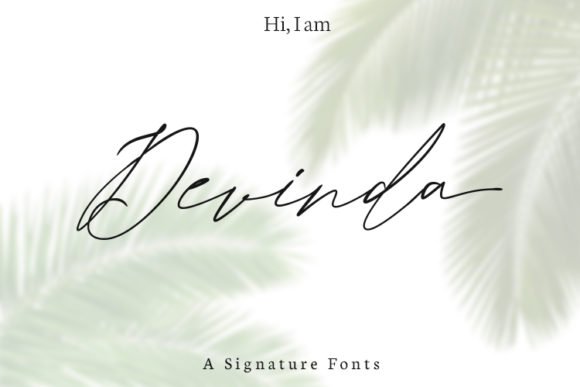
Discover the Timeless Charm of Devinda Font
Have you ever found yourself stuck in a creative rut, yearning for that perfect combination of elegance and authenticity? That’s where the Devinda Font comes in – a masterpiece that effortlessly fuses modern sophistication with a genuine, handwritten touch.
As a designer, you’re constantly on the lookout for that unique element that sets your work apart from the rest. That’s exactly what Devinda Font delivers – a bold and charming handwritten font that’s sure to capture the attention of your audience. Whether you’re working on a high-end branding project or a personal design venture, Devinda Font is a valuable addition to your toolkit, offering a versatility that’s hard to resist.
- Unique Characteristics: Hand-drawn, elegant, and sophisticated design with intricate details and flourishes
- Language Support: Latin, Cyrillic, and Greek alphabets, with support for over 100 languages
Devinda Font Review
Overall, I’m impressed with the unique and elegant design of the Devinda font. It’s perfect for creating a luxurious and sophisticated look in your designs. ✨
Here are some of its key strengths:
- Refined lines: The Devinda font has beautifully crafted lines that add to its sophistication.
- Distinct character set: It has a wide range of characters, including ligatures, which can be useful for designers.
- Scalability: The font looks great at various sizes, from small to large, which is essential for any font.
- Overly ornate: Some users may find the font too ornate, which can be distracting in certain designs. ⚠️
- Lack of consistency: While the font has a unique design, it may not be suitable for all types of designs, especially those requiring a more straightforward look.
- May not be suitable for body text: Due to its ornate design, the Devinda font may not be ideal for large blocks of body text.
In conclusion, the Devinda font is a great choice for designers who want to add a touch of luxury and sophistication to their designs. However, it’s essential to use it judiciously and consider the context in which it will be used.
Getting the Most Out of Devinda Font
To get the most out of Devinda Font, use it for:
- Titles and headings to add a touch of elegance.
- Body text to create a cohesive and professional look.
- Logos and branding materials to create a unique and recognizable identity.
Exploring the Devinda Font
Create a unique and eye-catching wedding invitation using the Devinda Font.
The Devinda Font includes a comprehensive character set, supporting a wide range of languages, including Latin, Greek, and Cyrillic scripts. It also includes a variety of symbols, punctuation marks, and special characters.